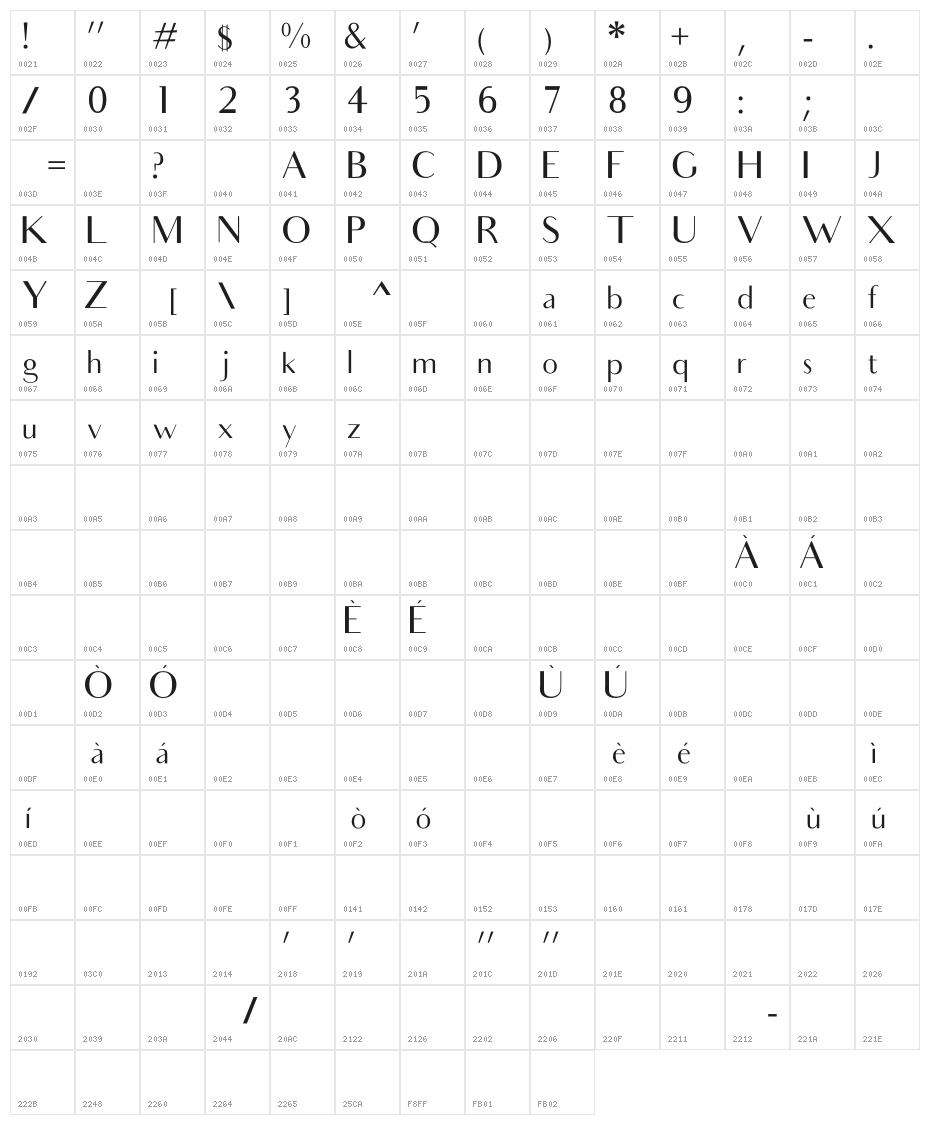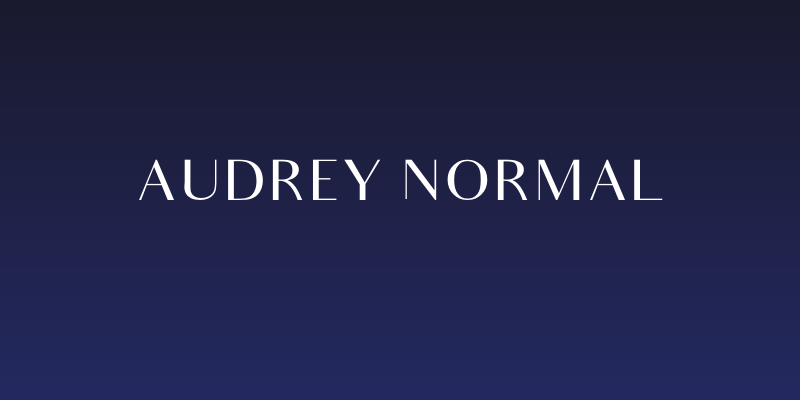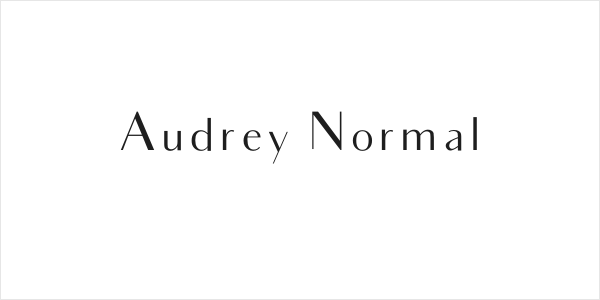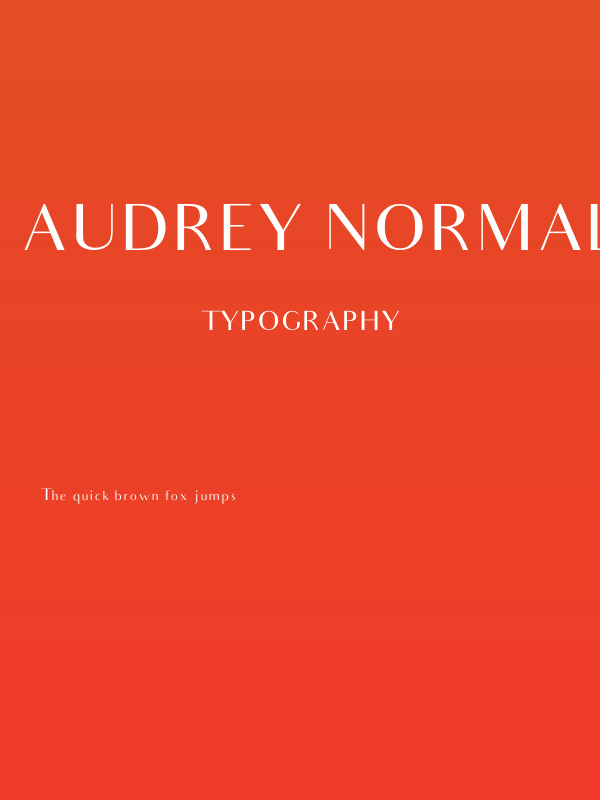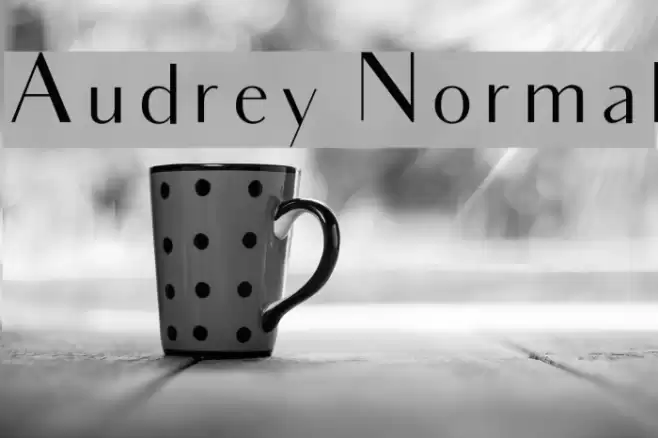
Audrey Normal Font
Audrey Normal Description
This font features a modern and elegant design with a high contrast between thick and thin strokes, giving it a sophisticated and stylish appearance. The uppercase letters are tall and slender, while the lowercase letters maintain a consistent flow with rounded edges. The numerals are clean and straightforward, complementing the overall aesthetic. Special characters are well-integrated, maintaining the font's sleek and polished look. This typeface is versatile, making it suitable for a variety of design projects that require a touch of elegance and modernity.
| Overall Style | Modern, Elegant |
| Use Case | Headlines, Logos, Invitations |
| Proposed Projects | Ideal for fashion magazines, luxury branding, wedding invitations, and high-end product packaging. |